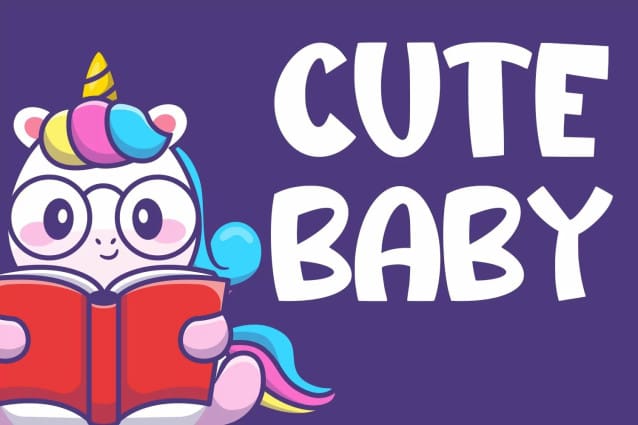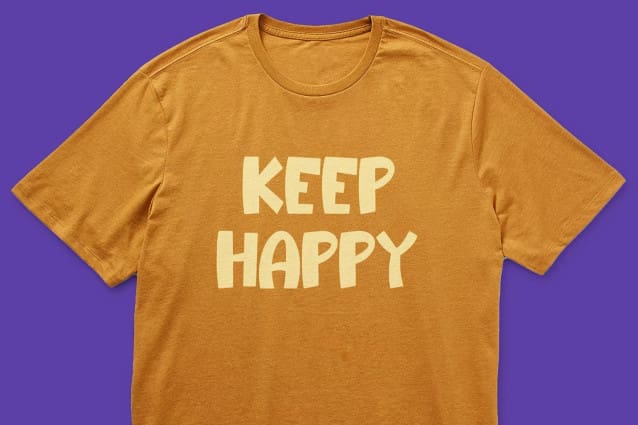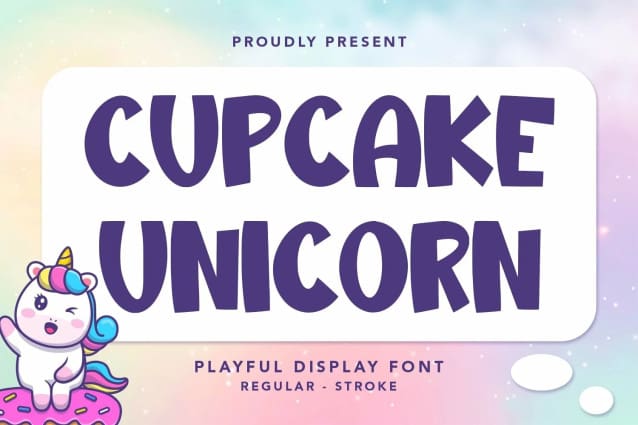
Cupcake Unicorn Font
Cupcake Unicorn Font – Cute Display Font that contains lowercase, uppercase, and symbol, and also support multi-language. There are a lot of ligatures in this font. This Font also comes with ligatures, alternates, and many more. This font is suitable for fashion, branding, catalog, and other design that you want.